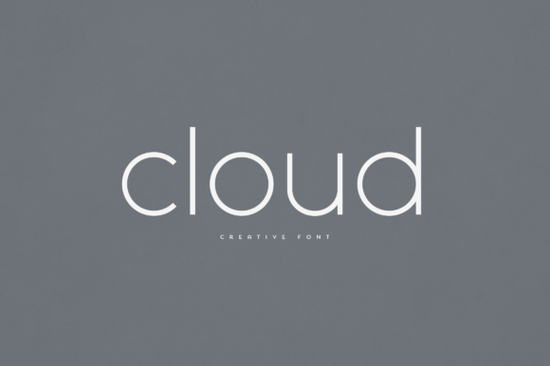
If you're looking for a clean, modern sans serif font that works equally well on product packaging, social media graphics, or hand-lettered-style home décor prints, the Cloud Font is a quietly effective choice. It’s not overly decorative but it’s far from generic. Designed with subtle rounded terminals and balanced proportions, it brings softness and clarity to any layout without sacrificing readability. Whether you’re a small business owner updating your brand assets or a POD seller refreshing your shop’s bestsellers, this typeface fits naturally into real-world design workflows.
What kind of projects does Cloud Font work best for?
Because it’s a versatile sans serif, Cloud handles both short impactful text and longer body copy though it shines brightest at medium to large sizes. Think: logo lockups where legibility matters at small scales (like embroidered patches or jar labels), Instagram story overlays with soft background imagery, or minimalist greeting card designs. Its gentle curves make it feel approachable, while its even spacing keeps things professional. It’s especially popular among makers who sell printable wall art, digital planners, or custom mugs anywhere typography needs to feel intentional but not fussy.
You’ll also find it used in boutique branding packages, like for candle makers, herbal tea brands, or ceramic studios places where warmth and simplicity go hand-in-hand. Unlike some trend-driven fonts, Cloud avoids extremes: no ultra-thin weights that disappear on screen, no exaggerated contrast that breaks at small sizes. That practical balance is why it’s become a quiet staple in many designers’ libraries.
How does Cloud compare to other friendly sans serifs?
If you’ve already tried Mirano Extended, you’ll notice Cloud has a more relaxed rhythm less geometric, more organic. Where Mirano leans into confident structure, Cloud breathes a little more. For those who prefer something bolder and more grounded, Vosage offers stronger presence and slightly tighter letterfit great for headlines that need to hold attention in busy layouts.
And if you like Cloud but want a version with more personality for playful projects, Adventure adds subtle quirks like lifted terminals and open apertures without going full display. All three are compatible in tone, so mixing them (e.g., Cloud for body text + Adventure for a subhead) feels cohesive, not chaotic.
The download includes standard OpenType features: uppercase and lowercase letters, numerals, punctuation, and basic Latin diacritics (so it supports most English, Spanish, French, and German use cases). No ligatures or stylistic alternates just one clean, well-hinted weight (Regular) that renders crisply across devices and printing methods. That simplicity means less time troubleshooting font substitution in Canva or Cricut Design Space, and more time focusing on your message.
One thing to keep in mind: since it’s a single-weight sans serif, it doesn’t replace a full family (like one with Light, Bold, and Italic variants). But for sellers who prioritize consistency over variety and who often pair it with a trusted serif or handwritten companion it’s more than enough.
A quick checklist before downloading
- You need a clean, readable sans serif for branding or print-on-demand projects not a decorative or script font.
- Your main use cases are headlines, logos, product tags, or overlay text on photos or textured backgrounds.
- You’d like something softer than Vosage but more structured than Adventure Cloud sits comfortably in between.
- You’ve checked the character set to confirm it covers the languages you need (it includes accented characters common in Western European languages).
If those match up, Cloud Font is ready to drop into your next project no overthinking needed.